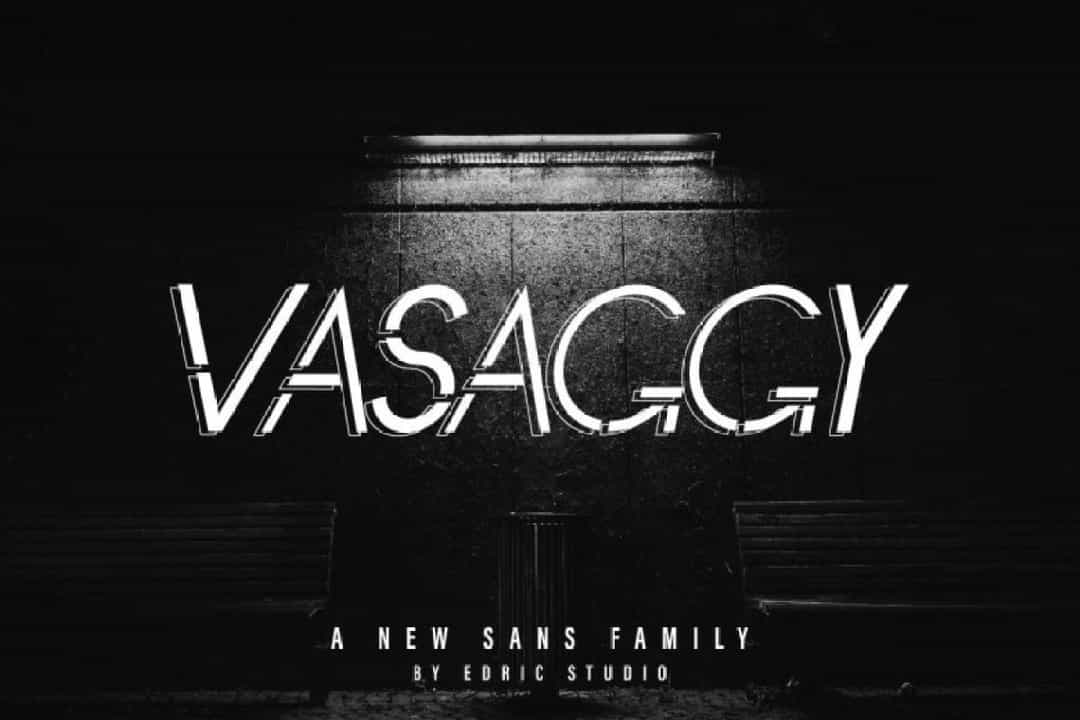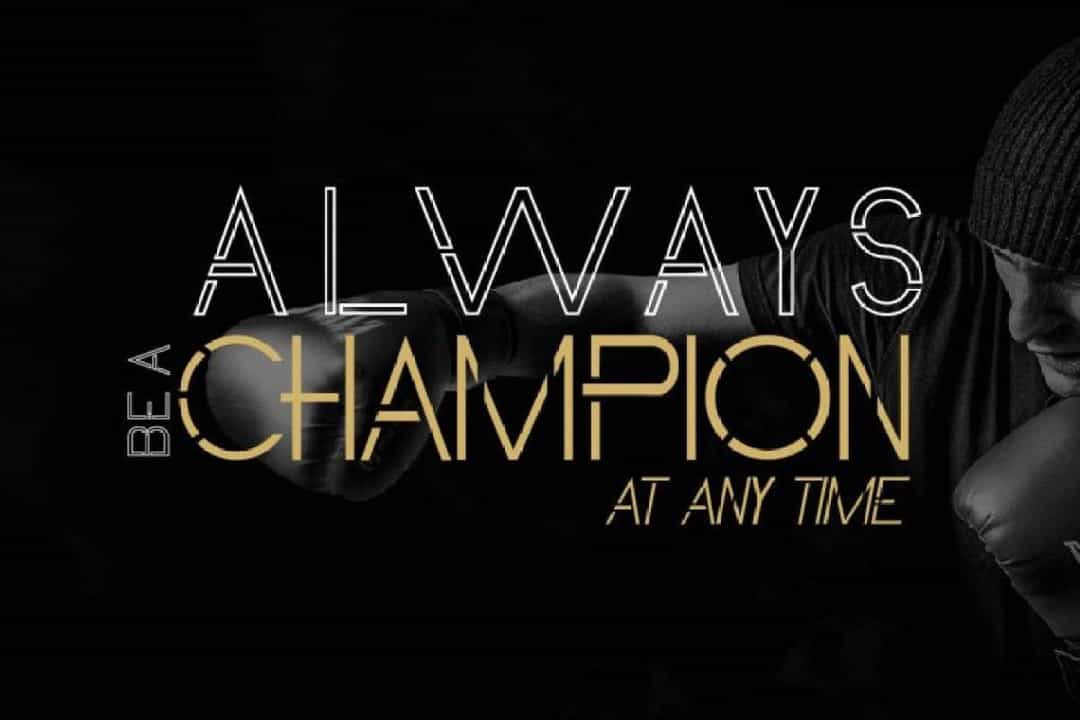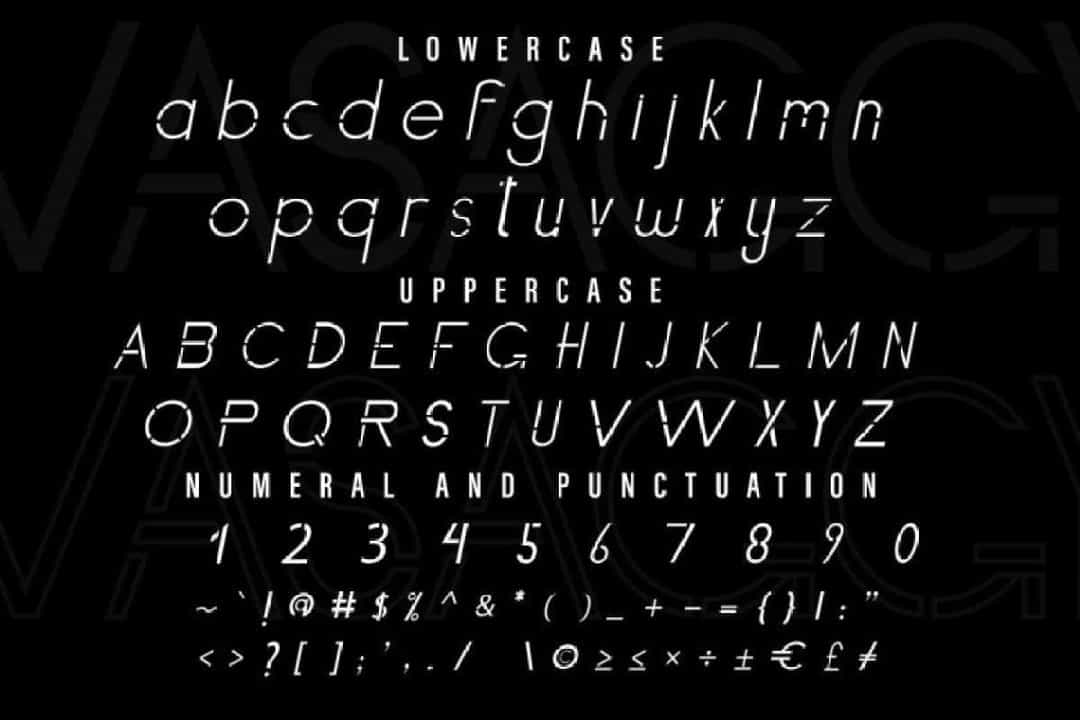
Discover Vasaggy Sans Serif Font, part of the Sans Serif Display collection—a versatile and unique font perfect for adding a personal touch to your projects. Download it for free and enjoy crafting designs with style, from invitations to social media posts. This font is available exclusively for personal use, giving you the freedom to create without limits. Unlock your creativity with Vasaggy Sans Serif Font today!
Vasaggy Fonts is available in three styles: negative reguler outline, spaced and italic, all with fashionable glyphs. The font is stunning with a gorgeous characters set that is perfectly handled with kerning and spaced well. The is elegant, contemporary, chic sophisticated, technological Space theme, startup.